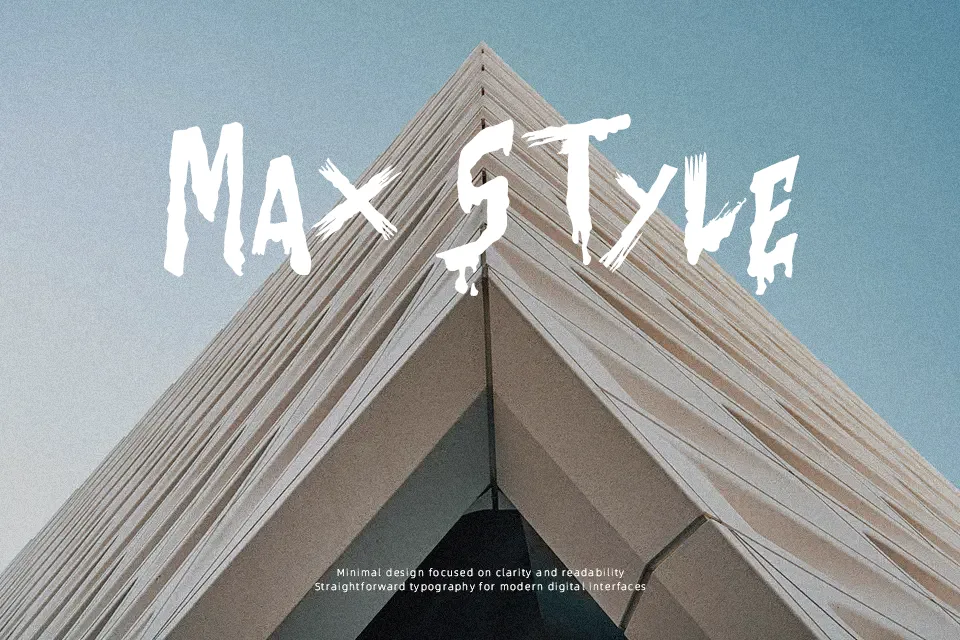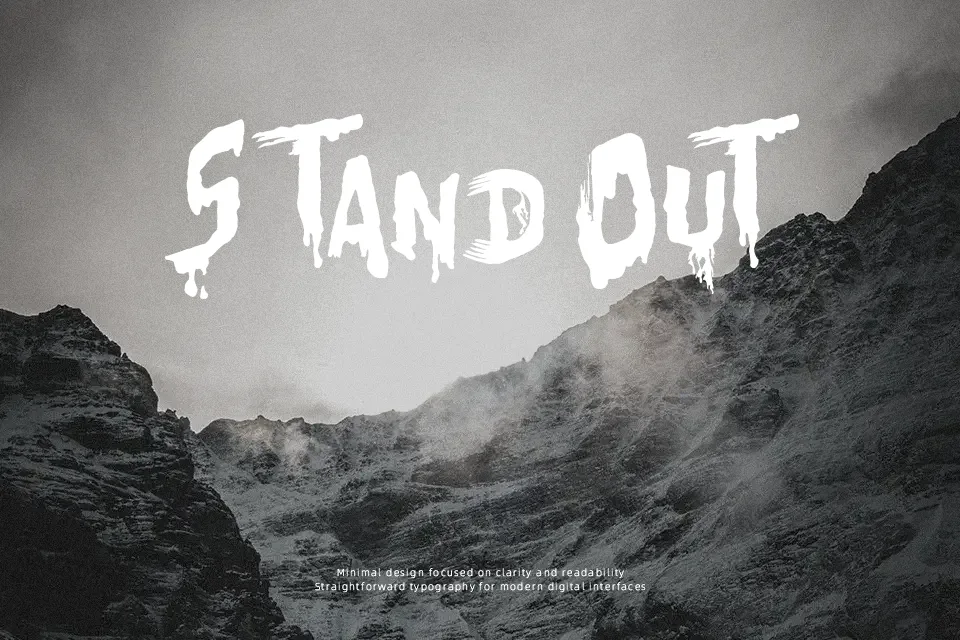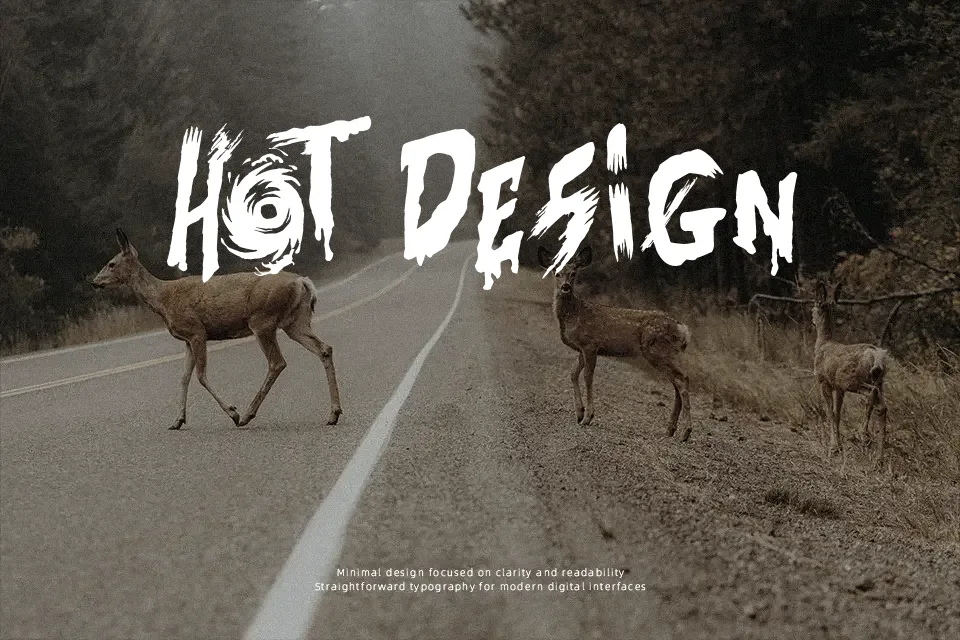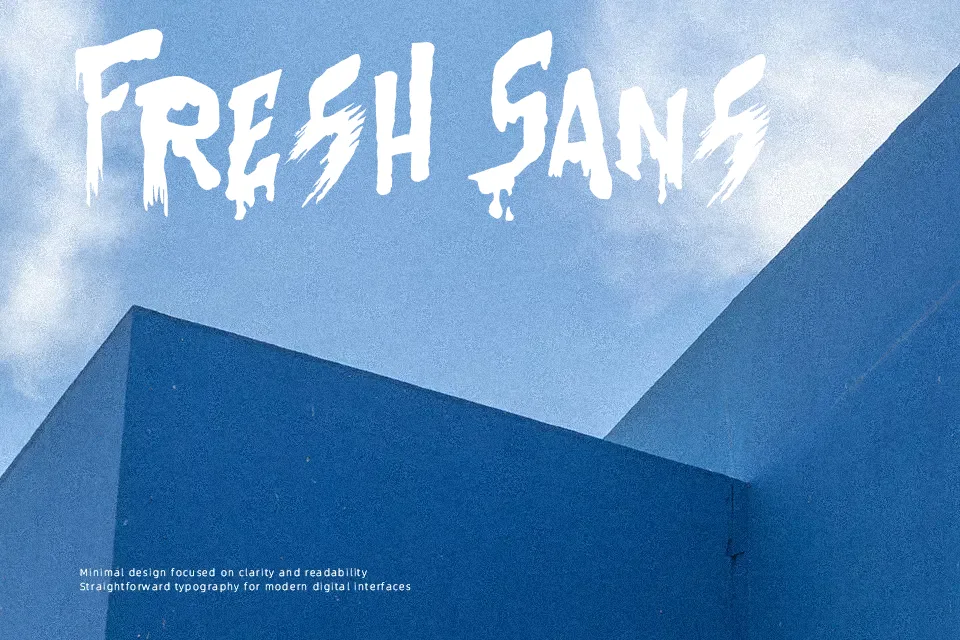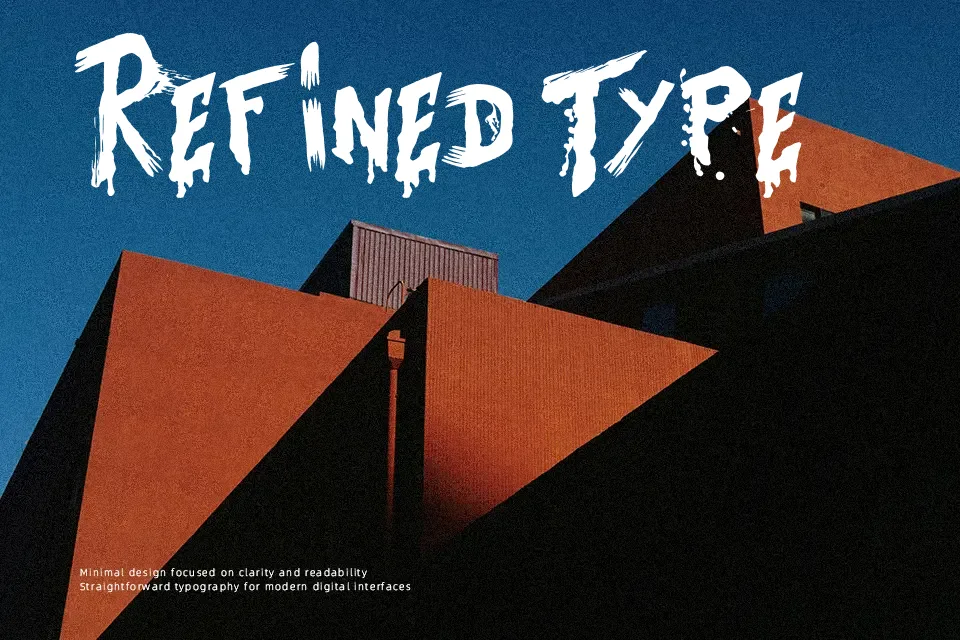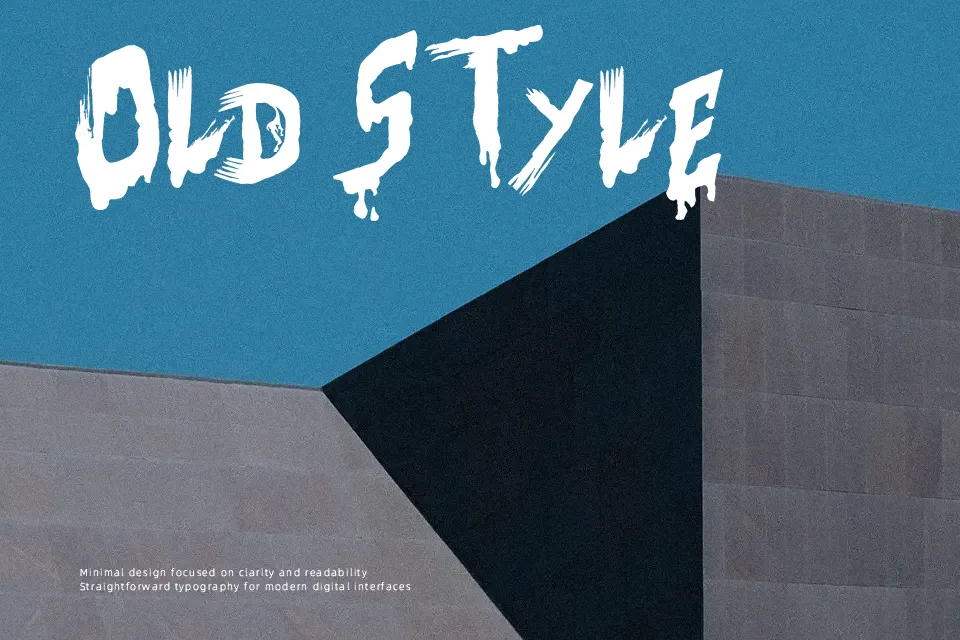
Bates Shower Font
Designed by imagex
Bates Shower uses rough, broken strokes and irregular edges to create a smeared, splatter-like texture that instantly reads as horror and tension. Its letters are bold, tightly composed, and heavily stylized, so they draw attention quickly but sacrifice readability in long lines. The overall impression is aggressive and chaotic, which works well for slasher film titles, Halloween event posters, extreme music covers, and themed social banners needing a distressed headline. However, its high visual noise and decorative shapes make it a poor choice for body copy, small captions, or professional corporate branding where clarity and neutrality matter more than impact.
– horror movie title graphics
– halloween party posters and flyers
– haunted house or escape room branding
– metal or punk album cover lettering
– long paragraph text or captions
– formal corporate identities or reports
– minimalist or clean UI layouts
– small-size on-screen text
Perfect for advertising, halloween, and headline, with a bold and brush style.